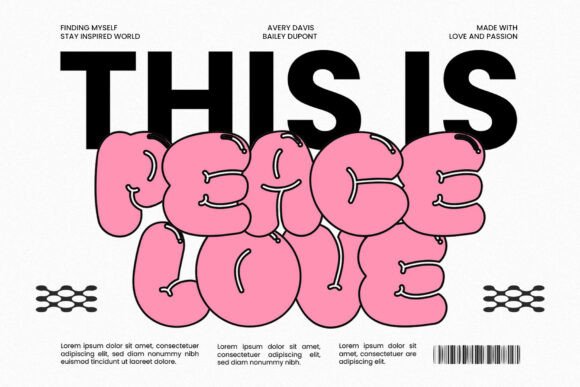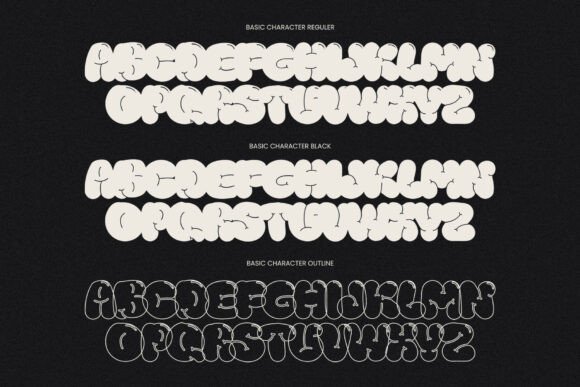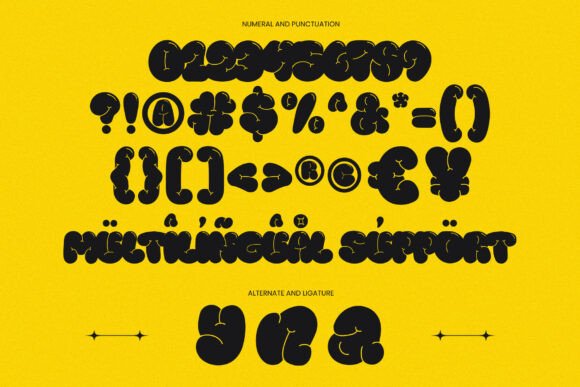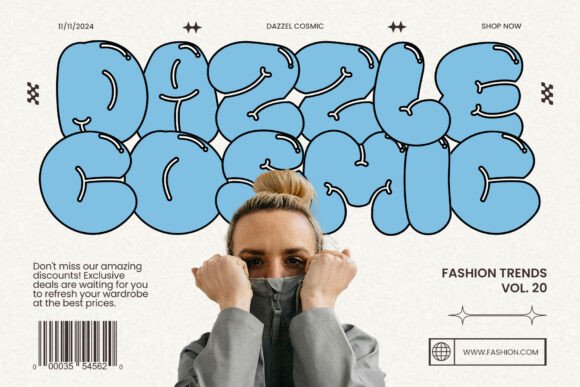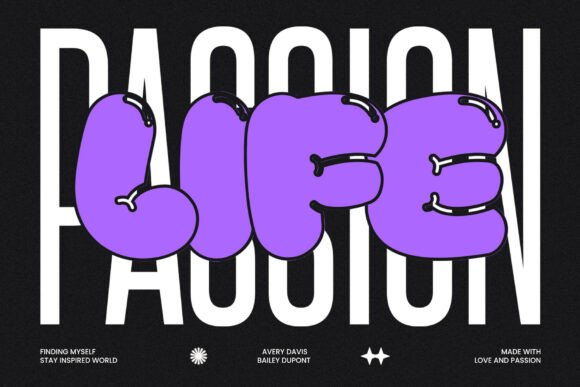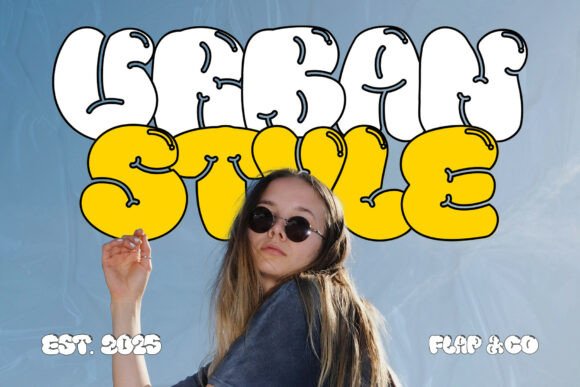
Get Ready to Pop: Introducing the Bubbly Puffy Font
You know that moment when you’re designing a project and you just can’t quite capture the playful vibe you’re going for? The text just doesn’t seem to be ‘popping’ like you want it to? That’s where the Bubbly Puffy Font comes in – a bold and playful bubble font that’s guaranteed to add some serious fun to your design.
This adorable font is perfect for anything that needs a loud and fun personality, from kids’ products to party flyers. With its soft, inflated curves and comic-style outlines, the Bubbly Puffy Font is sure to bring a smile to your audience’s faces. Whether you’re designing for a Y2K aesthetic or a retro poster, this font adds volume and attitude to every letter. And the best part? It’s available in Regular, Black, and Outline styles, making it a versatile addition to any designer’s toolkit.
Bubbly Puffy Font Key Features
- Font Family: Bubbly Puffy Font is a unique, hand-drawn font family that includes multiple styles, from casual to elegant.
- Character Set: The font family includes a wide range of characters, including uppercase and lowercase letters, numbers, punctuation marks, and special characters.
- Unique Characteristics: Bubbly Puffy Font features a playful, bubbly design with puffy textures and subtle shading, making it perfect for creative projects, such as invitations, greeting cards, and social media graphics.
- Font Styles: The font family includes multiple styles, including bold, italic, and regular, allowing users to add variety and depth to their designs.
Bubbly Puffy Font Review
As a designer, I’ve had the chance to play around with the Bubbly Puffy Font, and I must say it’s a fun and unique addition to any design project. ✨ Here are some things that I think work well:
- Eye-catching and playful vibe: The Bubbly Puffy Font is perfect for adding a touch of whimsy to your designs.
- Variety of styles: From light to bold, and with different line widths, this font offers plenty of options to experiment with.
- Easy to read: Despite its playful appearance, the font is surprisingly easy to read, making it suitable for body text as well as headings.
However, I did encounter a few limitations that I think are worth mentioning: ⚠️
- Not ideal for formal or professional designs: The font’s playful nature makes it better suited for informal or creative projects.
- Lack of italic or oblique styles: While the font offers various styles, it would be nice to have more options, such as italic or oblique versions.
Overall, I think the Bubbly Puffy Font is a great addition to any designer’s toolkit. While it may not be suitable for every project, it’s perfect for adding a touch of fun and personality to your designs.
Some tips for getting the most out of the Bubbly Puffy Font include:
– Using it for headings and titles to add a playful touch.
– Pairing it with solid fonts for contrast and visual interest.
– Using it for social media graphics and advertisements to add a fun and eye-catching element.